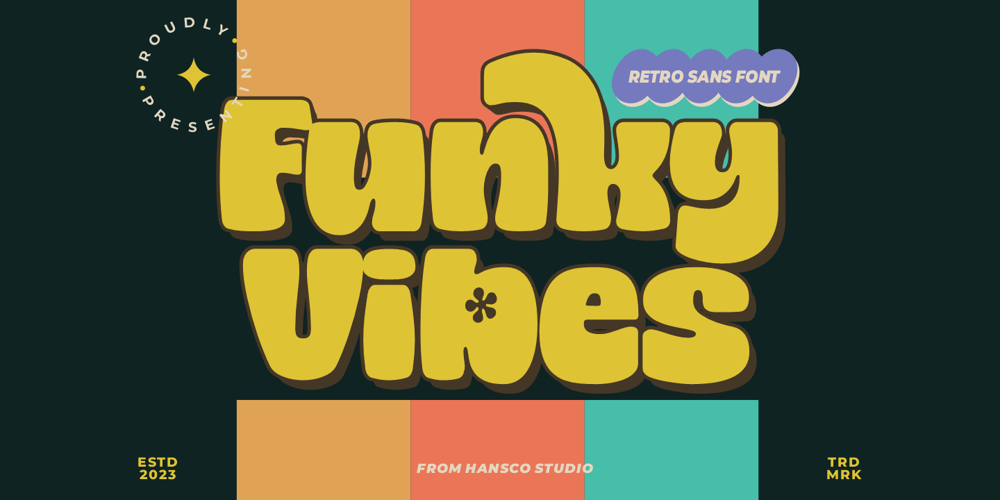
Funky Vibes
Funky Vibes font
Funky Vibes Font Family was designed by Burhan Afif and published by HansCo. Funky Vibes contains 1 styles and family package options. Funky Vibes font is a retro psychedelic font style with rounded touch. Equipped with all complete characters ranging from uppercase letters, lowercase letters, numbers, punctuation marks and multi-lingual support, this font is ready to be used in any project.Enjoy!